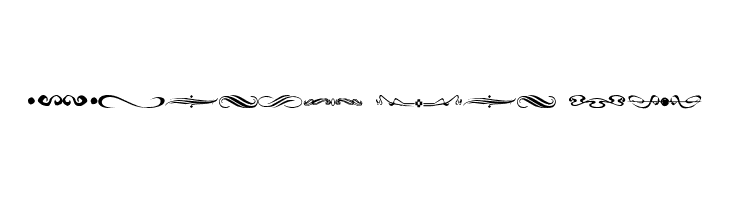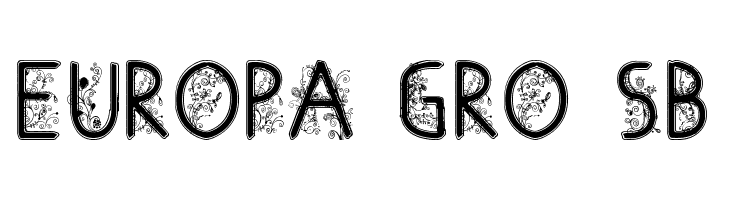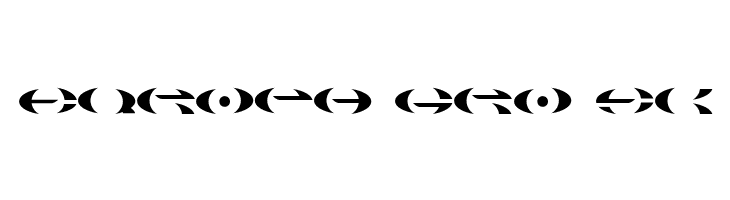
A bold, decorative font with fantasy-themed elements and intricate designs.
A bold, playful font with dotted patterns and geometric shapes.
A playful, polka-dotted decorative font with bold, rounded characters.
A playful, cow-patterned font with rounded, bold characters.
A decorative font with star-filled characters and a playful style.
A playful, doodle-patterned font with a hand-drawn aesthetic.
A bold, decorative font with a unique dotted pattern, perfect for creative projects.
A bold, decorative italic font with unique cut-out patterns.
A bold, decorative font with elegant curves and vintage flair.
A dynamic italic font with bold, fluid strokes and moderate contrast.
A bold, decorative font with outlined, three-dimensional characters.
A mosaic-patterned font with a playful and artistic style.
A bold, decorative font with diverse patterns and textures in each character.
A bold, decorative font with patterned and textured characters, perfect for creative designs.
A bold, playful font with abstract, patterned interiors and thick outlines.
A motif-based decorative symbol set with bold, intricate designs.
A playful font with paw print accents and a hand-drawn style.